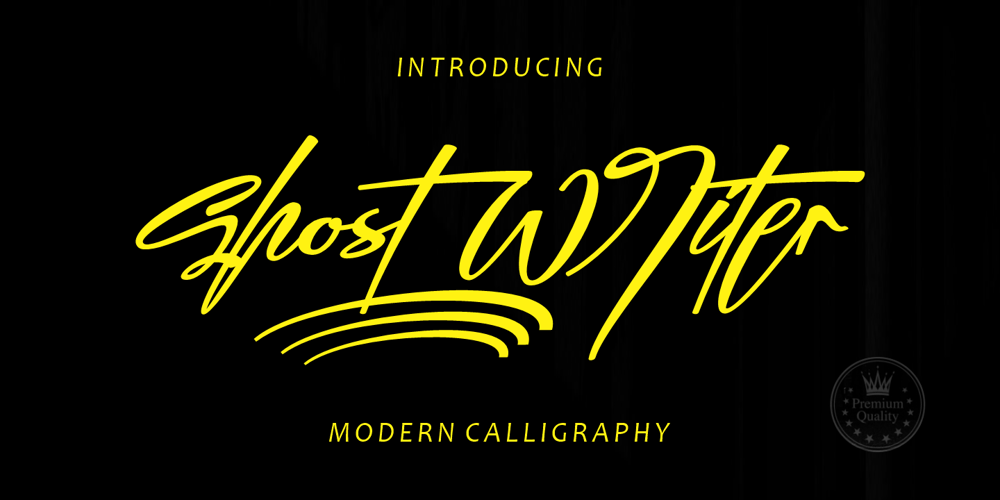
Ghost Writer Font Family was designed by Afri Giani and published by Gian Studio. Ghost Writer contains 2 styles and family package options. purt numberThe Ghost Writer font is a dynamic handcrafted font that also features beautiful open type. great for Branding, Logo Design, Fonts, Logotype, Apparel, Posters, magazines and other design projects.Ghost Writer features OpenType style alternatives, ligatures, and International support for most Western Languages included. To enable the OpenType Stylistic alternative, you need a program that supports OpenType features such as Adobe Illustrator CS, Adobe Indesign & CorelDraw X6-X7, Microsoft Word 2010 or a later version. How to access all alternative characters using Adobe Illustrator:Designer: Afri GianiPublisher: Gian StudioHappy Designing!